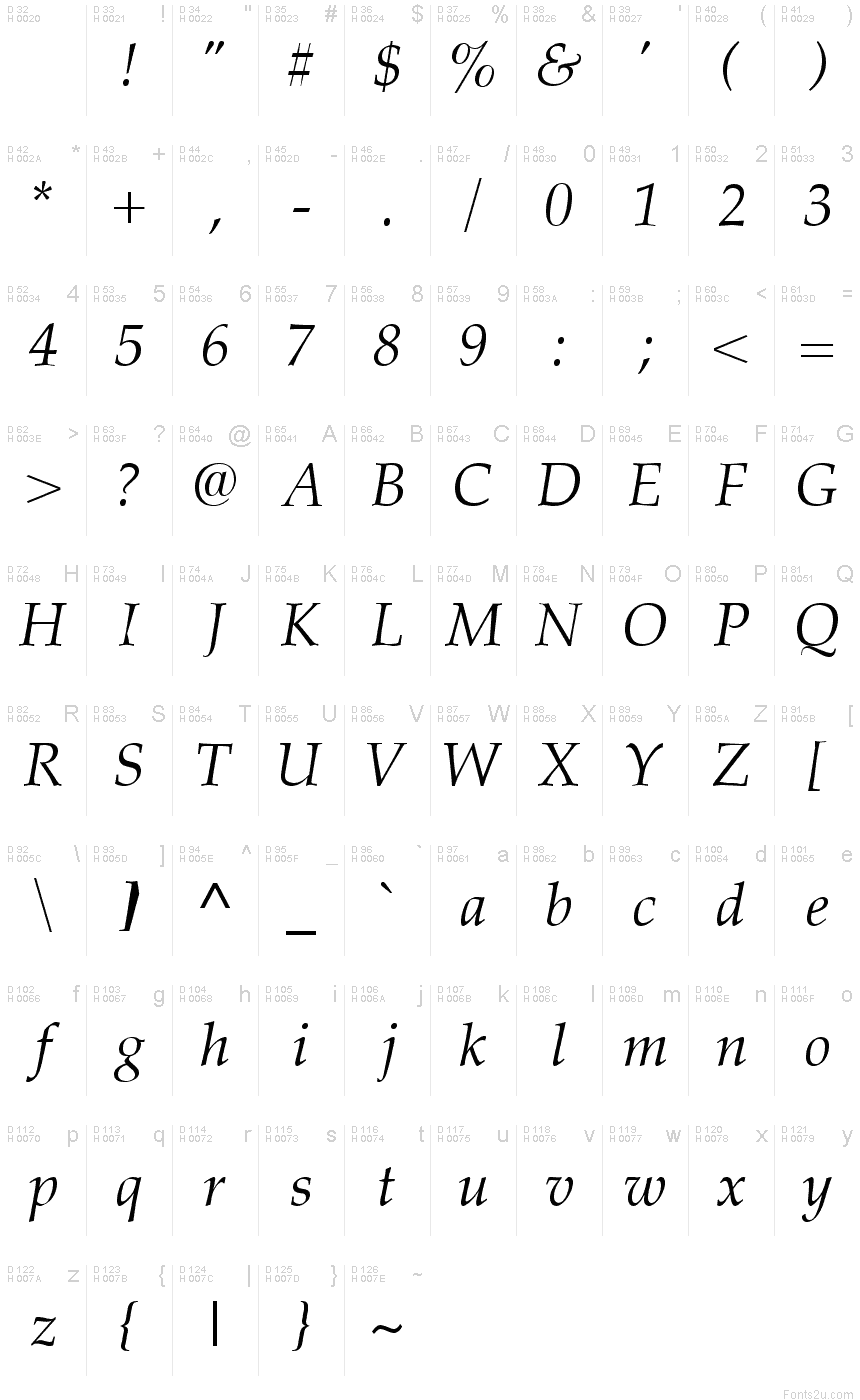
HI Piilani Italic by Altsys is a free high-contrast serif font with a pronounced rightward slant and an elegant, fashion-minded air. Tall capitals rise above softer lowercase forms, and sharp shifts between broad strokes and fine hairlines create a poised silhouette with crisp, tapered serifs.
Fashion, beauty, and formal celebration are its most convincing subjects. Fashion editorials and perfume packaging can draw a direct link between the sweeping curves and images of draped fabric, ribbon, or polished glass, and the same refined manner suits boutique branding and wedding invitations centered on graceful botanical artwork with long, slender stems and petals.